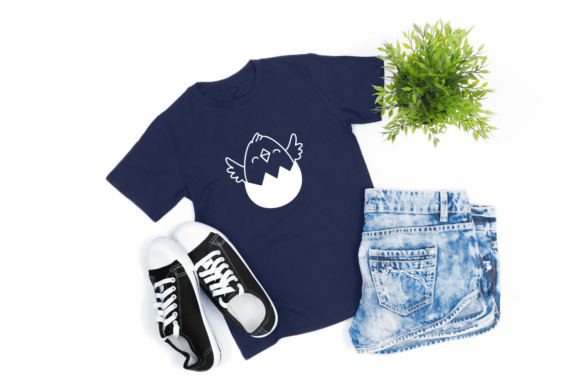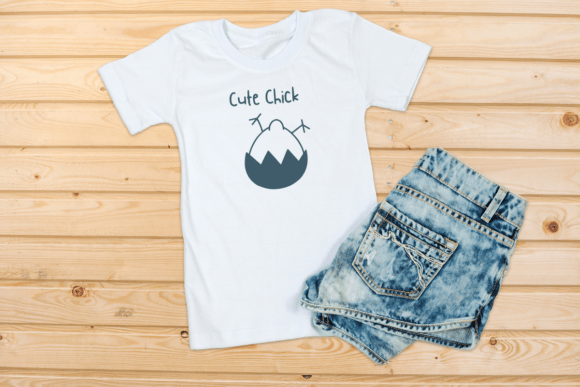
The Delightful World of Chicks Doodle Font
As a designer, I’ve had my fair share of font struggles. I recall working on a project for a client who wanted a playful, hand-drawn look for their branding. I spent hours scouring the internet for the perfect font, only to come across Chicks Doodle Font. It was love at first sight! ✨ The quirky, doodle-like design instantly captured the essence of what my client was looking for. In this article, I’ll share my experience with Chicks Doodle Font, its features, and how to make the most of it in various design platforms.
- ✨ Unique and playful design that’s perfect for creative projects
- ✅ Extensive character set, including glyphs and stylistic alternates
- ✅ OpenType features for added versatility
While Chicks Doodle Font is an excellent choice for many projects, there are a few things to keep in mind: ⚠️
- 🤔 Some characters may not work well in smaller font sizes, so it’s best to use it at larger sizes (24pt and above)
- ⚠️ Limited support for non-English characters, so it’s best to stick to English text
The Backstory of Chicks Doodle Font
Chicks Doodle Font was created with the intention of capturing the playful, carefree spirit of doodling. The designer wanted to create a font that would allow users to add a personal touch to their projects, making them more relatable and engaging. The result is a font that’s both fun and versatile, suitable for a wide range of creative projects.
Q: Is Chicks Doodle Font suitable for body text?
A: While Chicks Doodle Font is a beautiful font, it’s best suited for headlines, titles, and short paragraphs. Its playful design may not be ideal for lengthy body text.
Q: Can I use Chicks Doodle Font in my craft projects?
A: Absolutely! Chicks Doodle Font is perfect for craft projects, such as card making, scrapbooking, and DIY signage. Its unique design will add a personal touch to your creations.